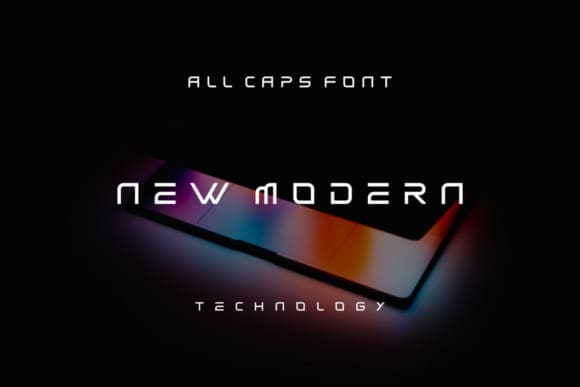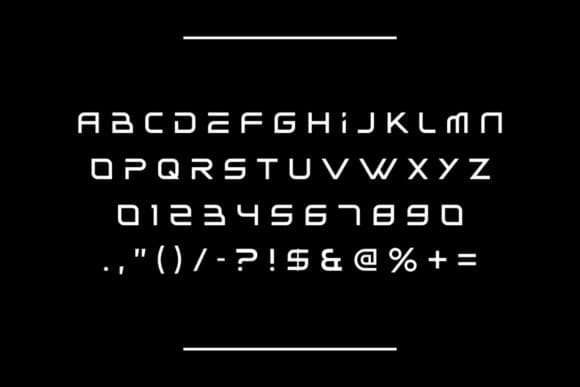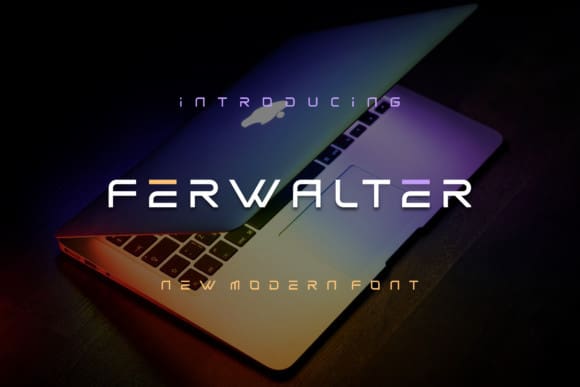
Ferwalter Techno Font
Ferwalter Techno Font is a cool and modern display font. It will look stunning on any poster, flyer or print. Use this font for your designs and explore its endless possibilities.